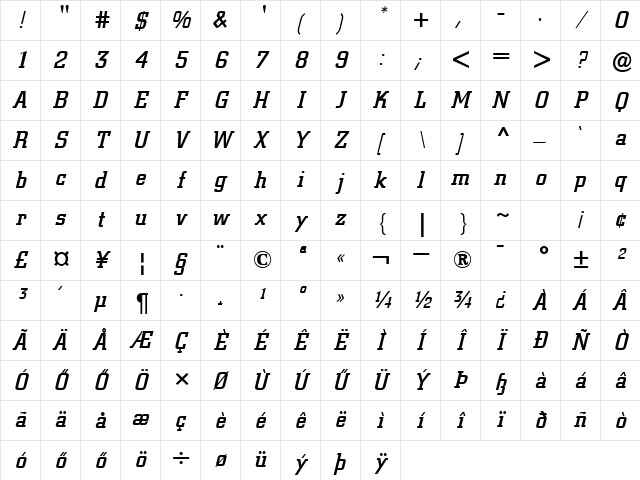
H_Berthold City MediumItalic
Style: MediumItalic
Design Context for H_Berthold City
H_Berthold City is a composed and adaptable typeface that performs quietly and consistently across a wide range of design contexts. The slanted form adds forward momentum and visual energy.
Pro Tip: Use H_Berthold City for emphasis, pull quotes, and subheadings where its slanted energy can add rhythm to the layout.